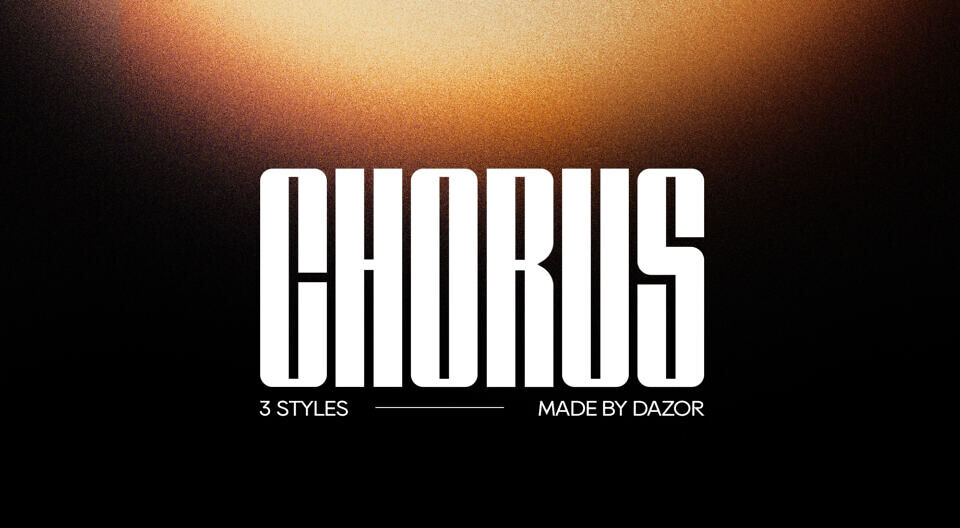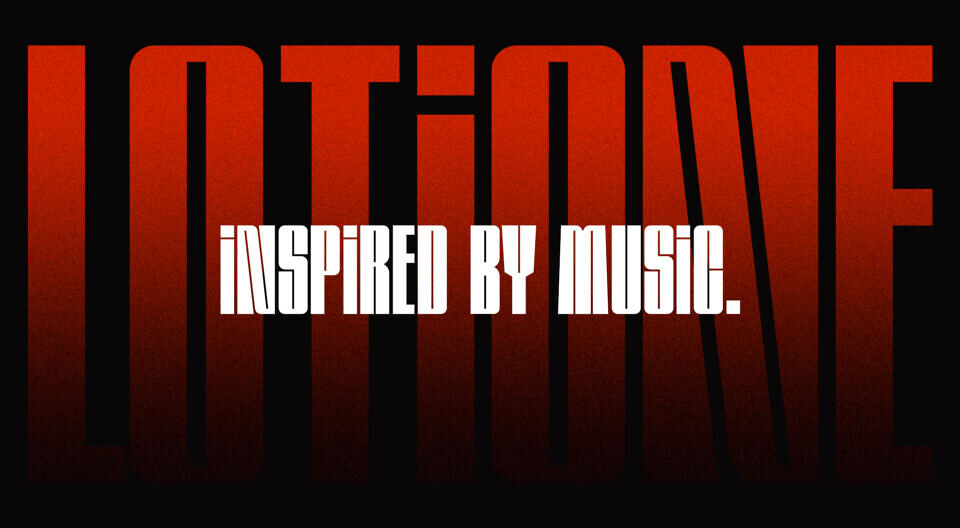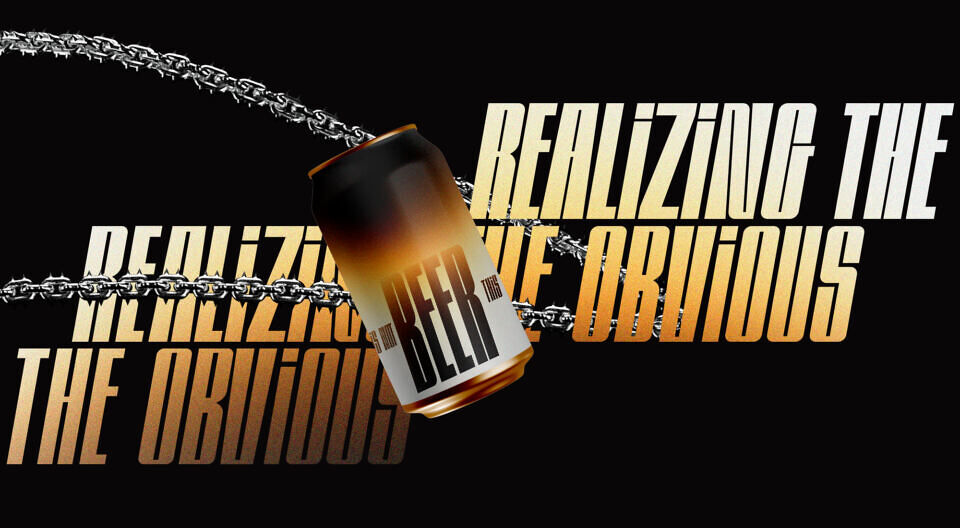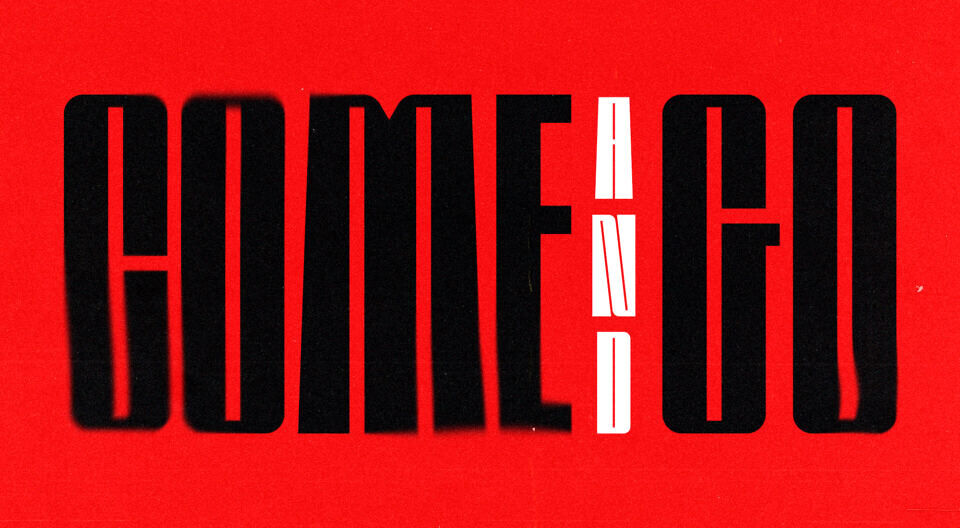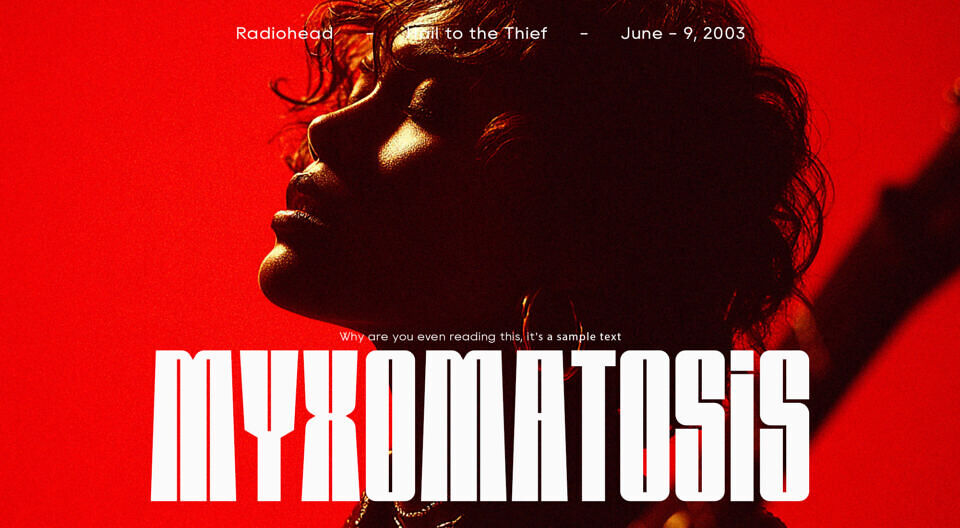
CHORUS is a contemporary sans serif font. Includes 3 weights: Bold/Semi-black/Black and their italic versions.
Inspired by the world of modern music. Works well for accents and headlines, with posters/banners/branding etc.